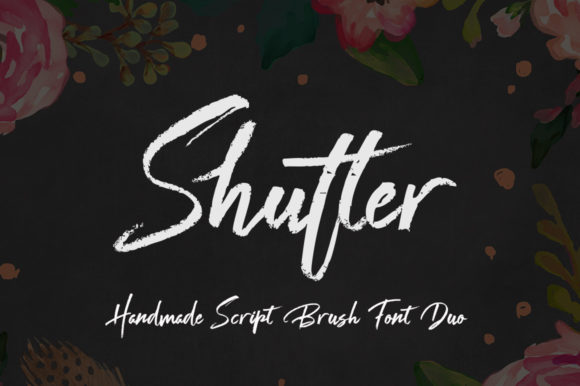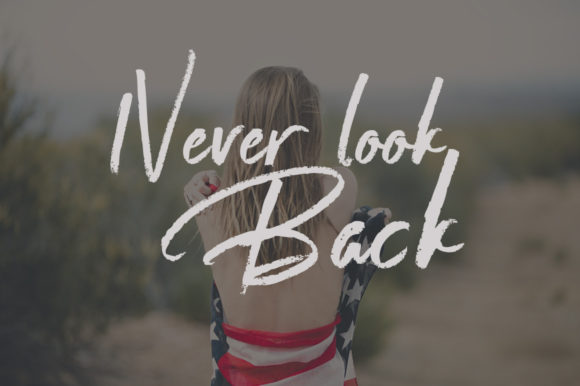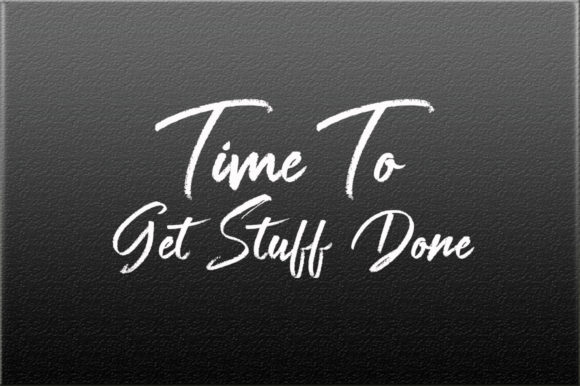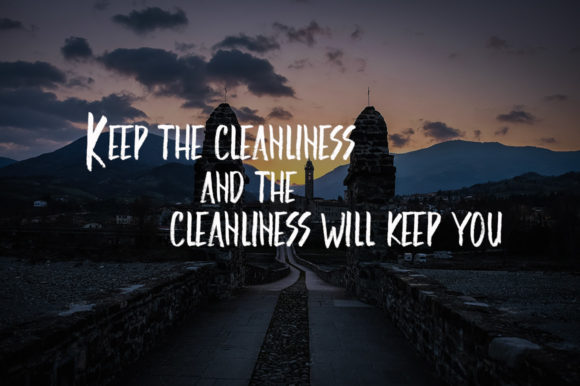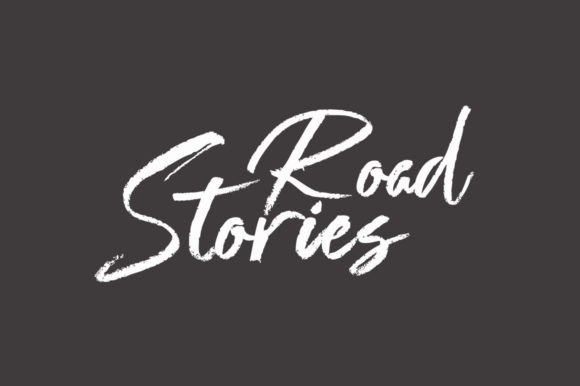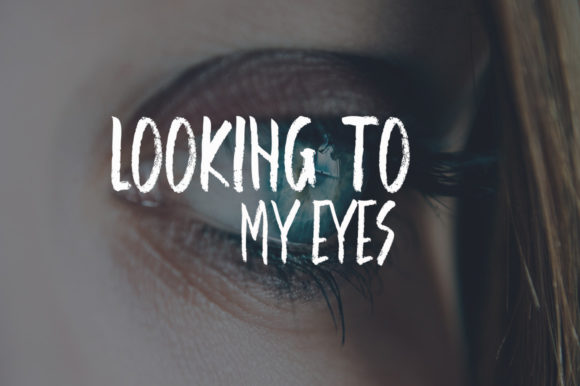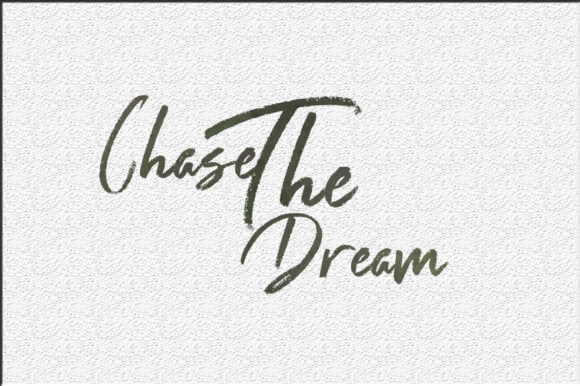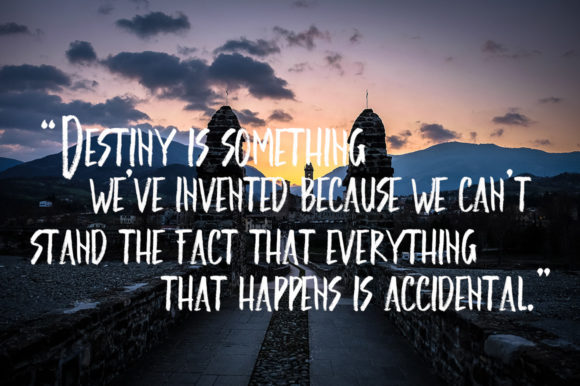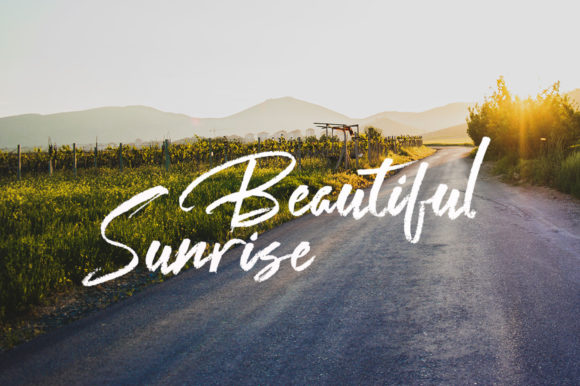
Shutter and White Font
About Shutter and White Font
Shutter and White is a superb brush-styled handwritten font. Fall in love with its completely different style and use it to create spectacular designs!